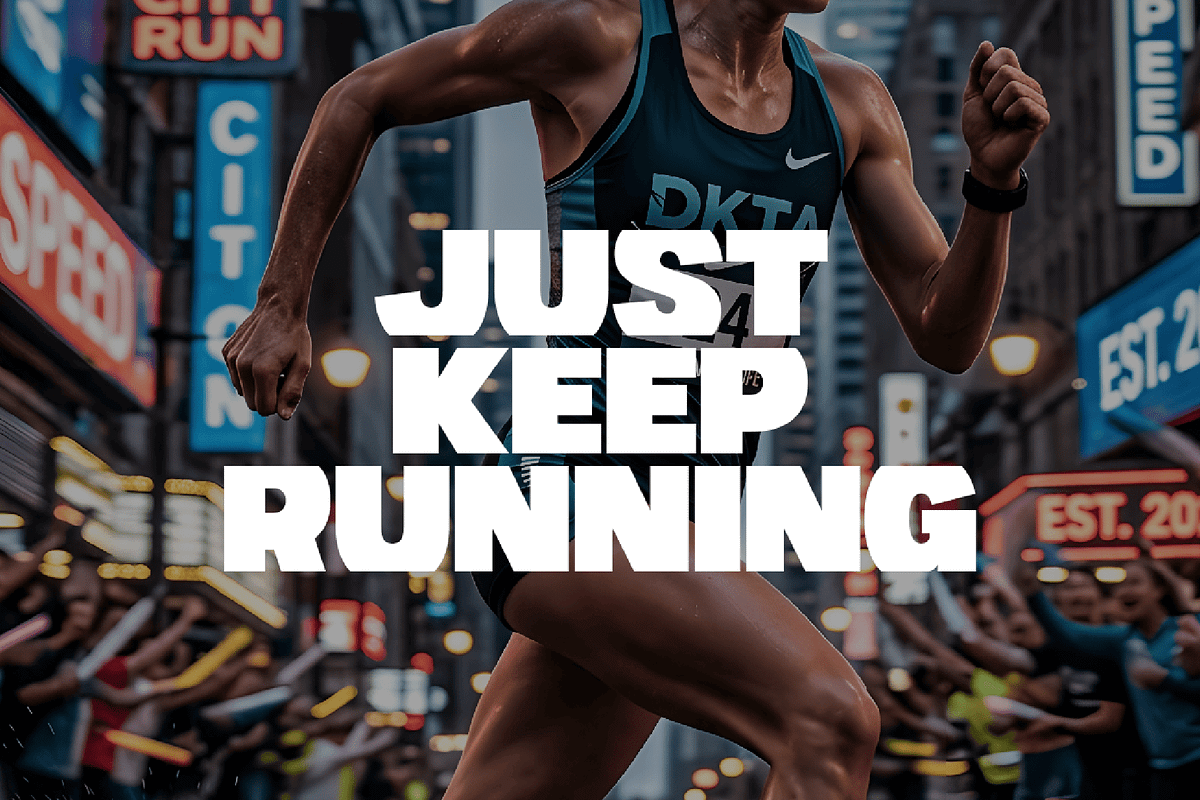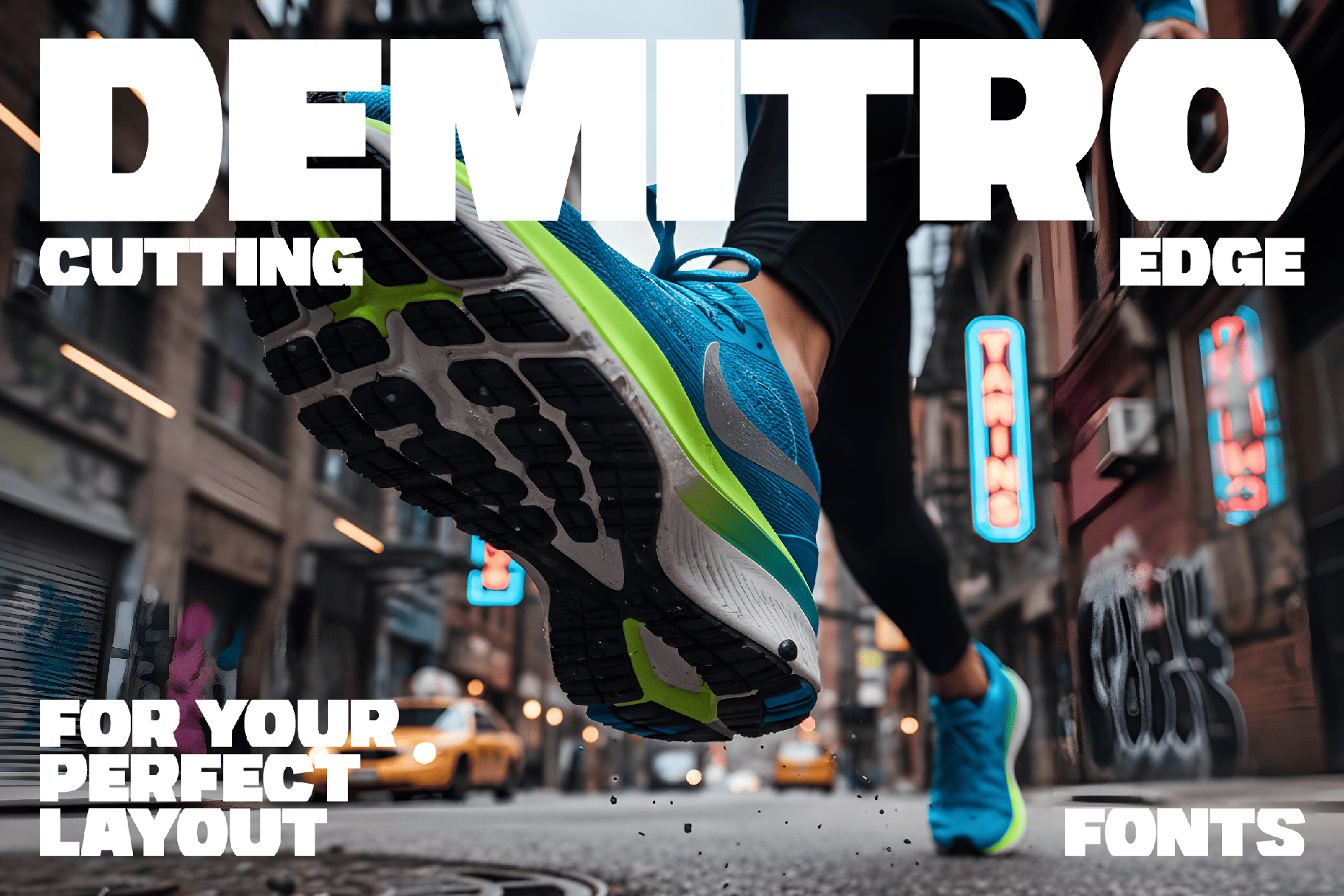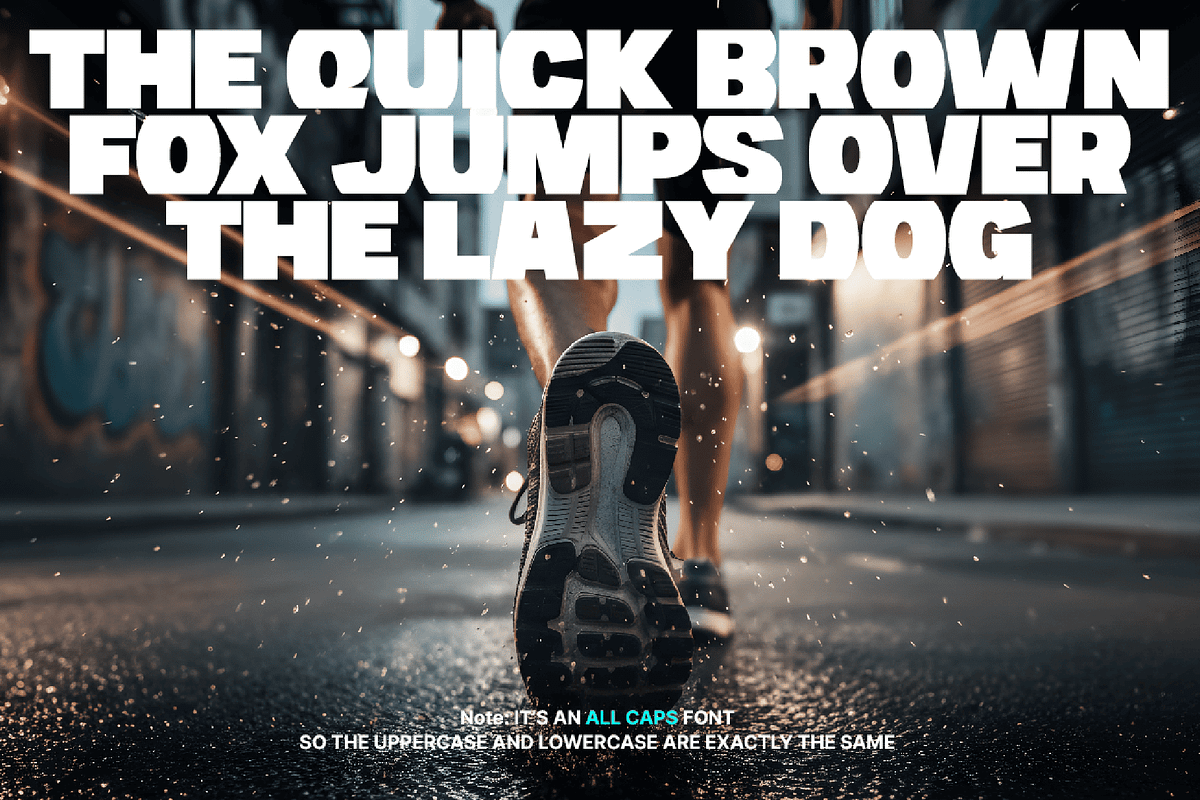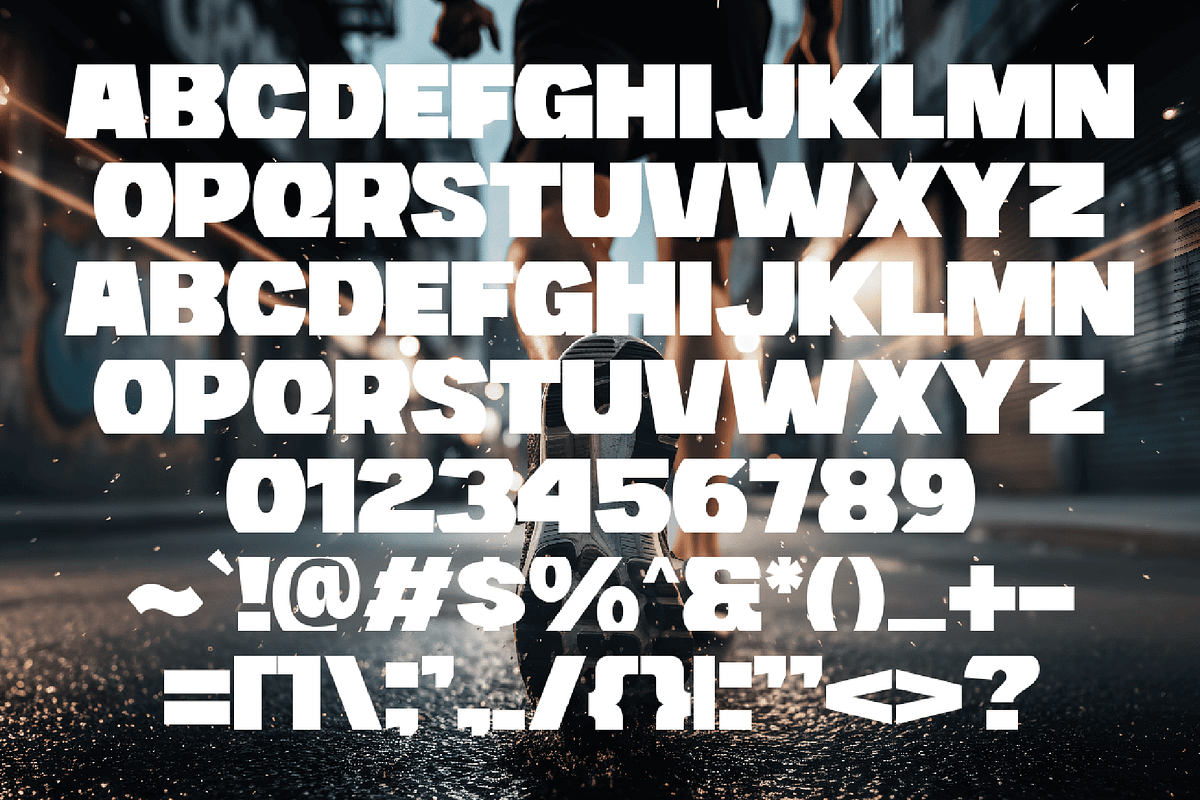
Demitro - Bold Geometric Sans Fonts
Redefining the grid. Demitro is not just another bold sans-serif; it is a precision-engineered display font designed for designers who demand structure. By meticulously shearing the top and bottom of traditional letterforms, Demitro transforms standard characters into hyper-stable, squared-off blocks that command attention.
The result? A typeface that feels less like writing and more like architecture.
The Concept: Form Meets Function While the DNA of Demitro is rooted in the reliability of a classic heavy sans, its execution is purely modern. The "flat-cut" philosophy ensures that every line of text creates a perfectly aligned horizontal boundary. This unique geometric profile makes it a "cheat code" for achieving professional, balanced layouts with zero effort.
Why Demitro is a Layout Essential:
Perfect Compositions: The squared-off tops and bottoms create natural "snap-to" points, making it ideal for tight leading and interlocking text blocks.
Branding with an Edge: It provides the impact of a custom-designed logo straight out of the box. Its silhouette is unmistakable, giving brands a sense of permanence and strength.
Maximum Versatility: Though it carries a unique "cut" aesthetic, it retains the high legibility of a basic bold font, making it suitable for everything from high-fashion editorial to heavy-duty sports branding.
The "Block" Aesthetic: Perfect for posters, headlines, social media graphics, and streetwear apparel where the type needs to function as a visual anchor.
Ideal For:
Impactful Headlines: Stop the scroll with headers that feel heavy and grounded.
Identity Design: Create logos that look custom-lettered and structurally sound.
Urban & Sportswear Branding: Tap into the "cutting-edge" energy of modern athleisure and street culture.
Large Scale Print: From billboards to exhibition walls, Demitro maintains its crisp, geometric integrity at any size.